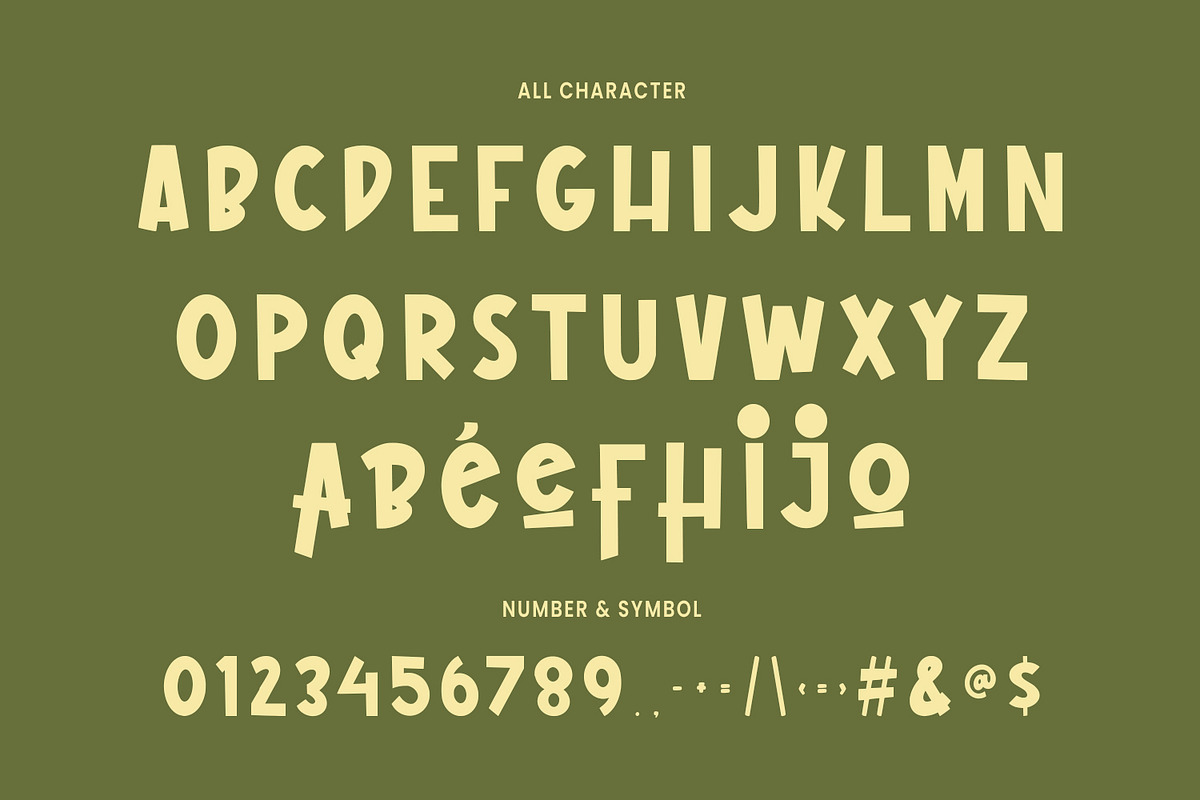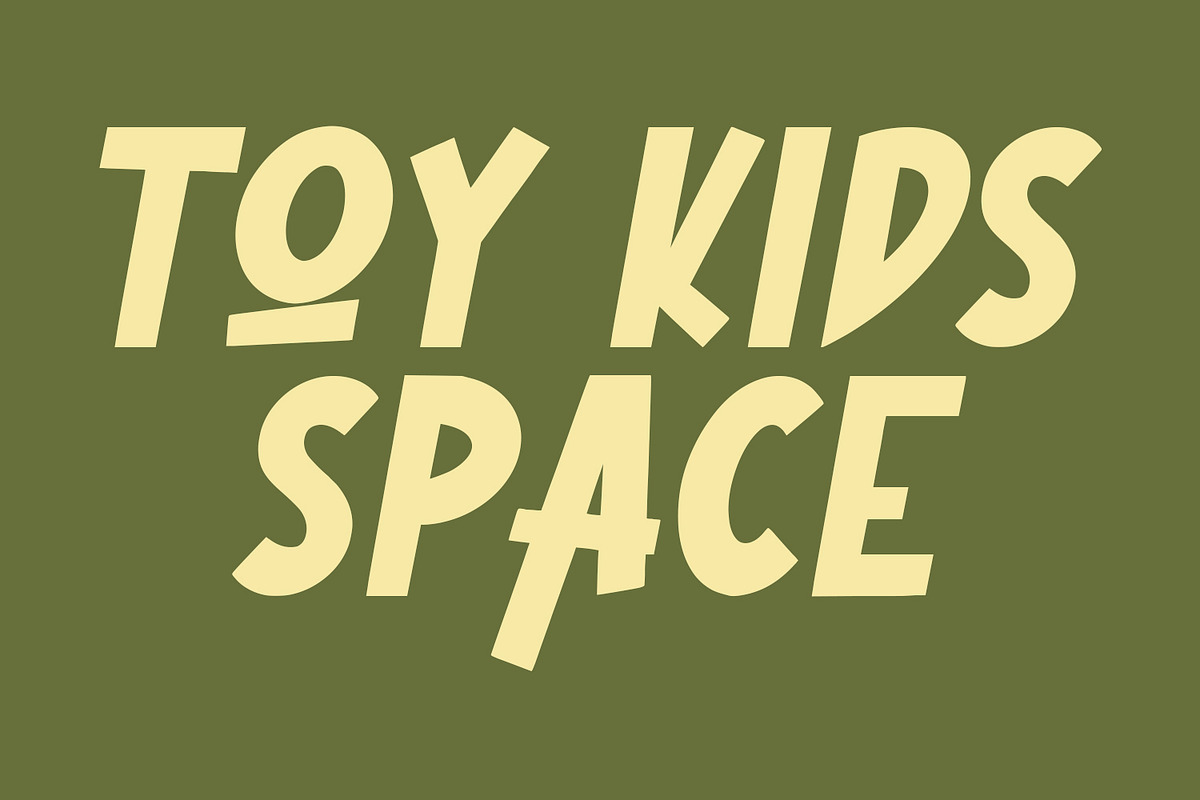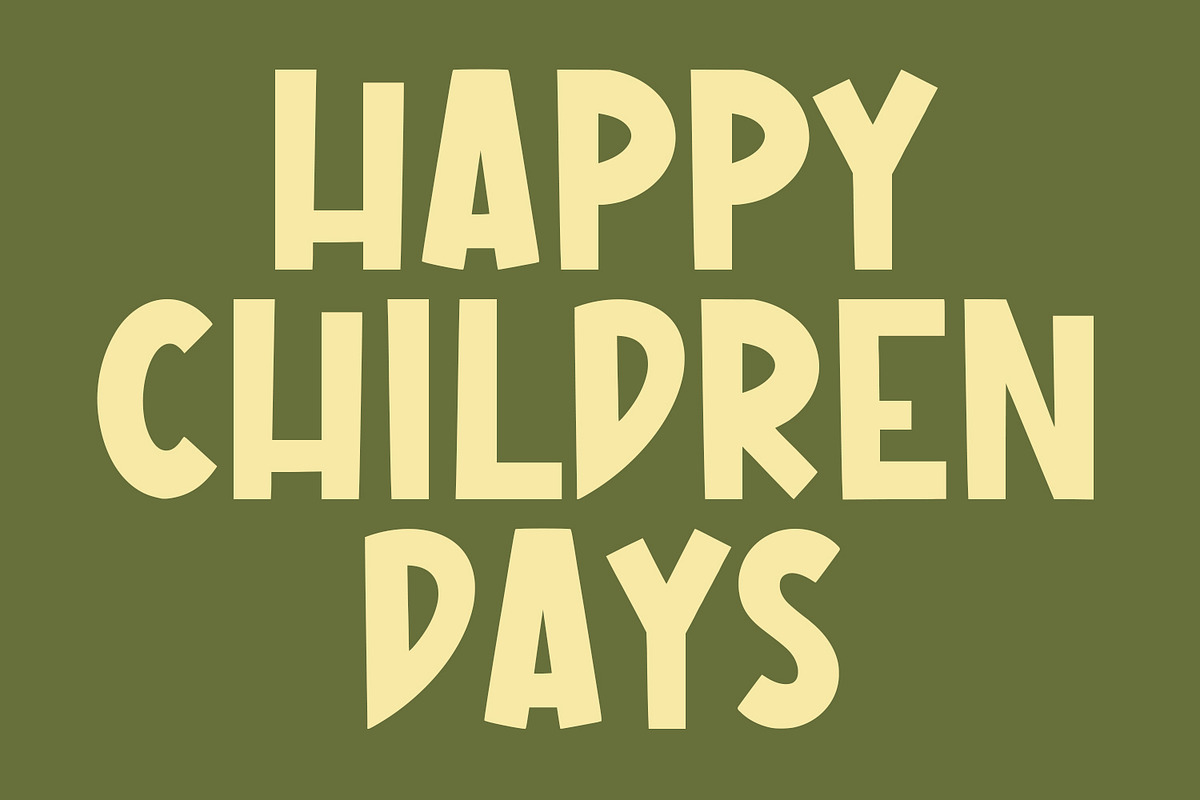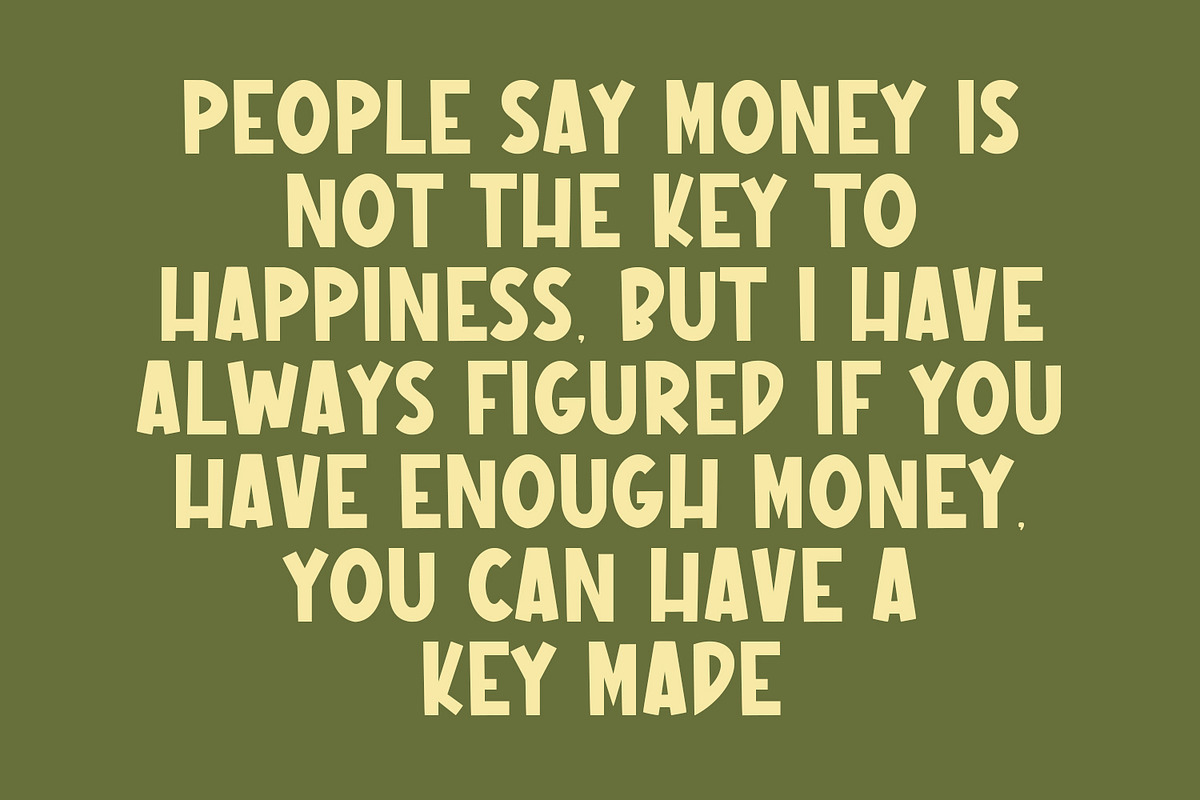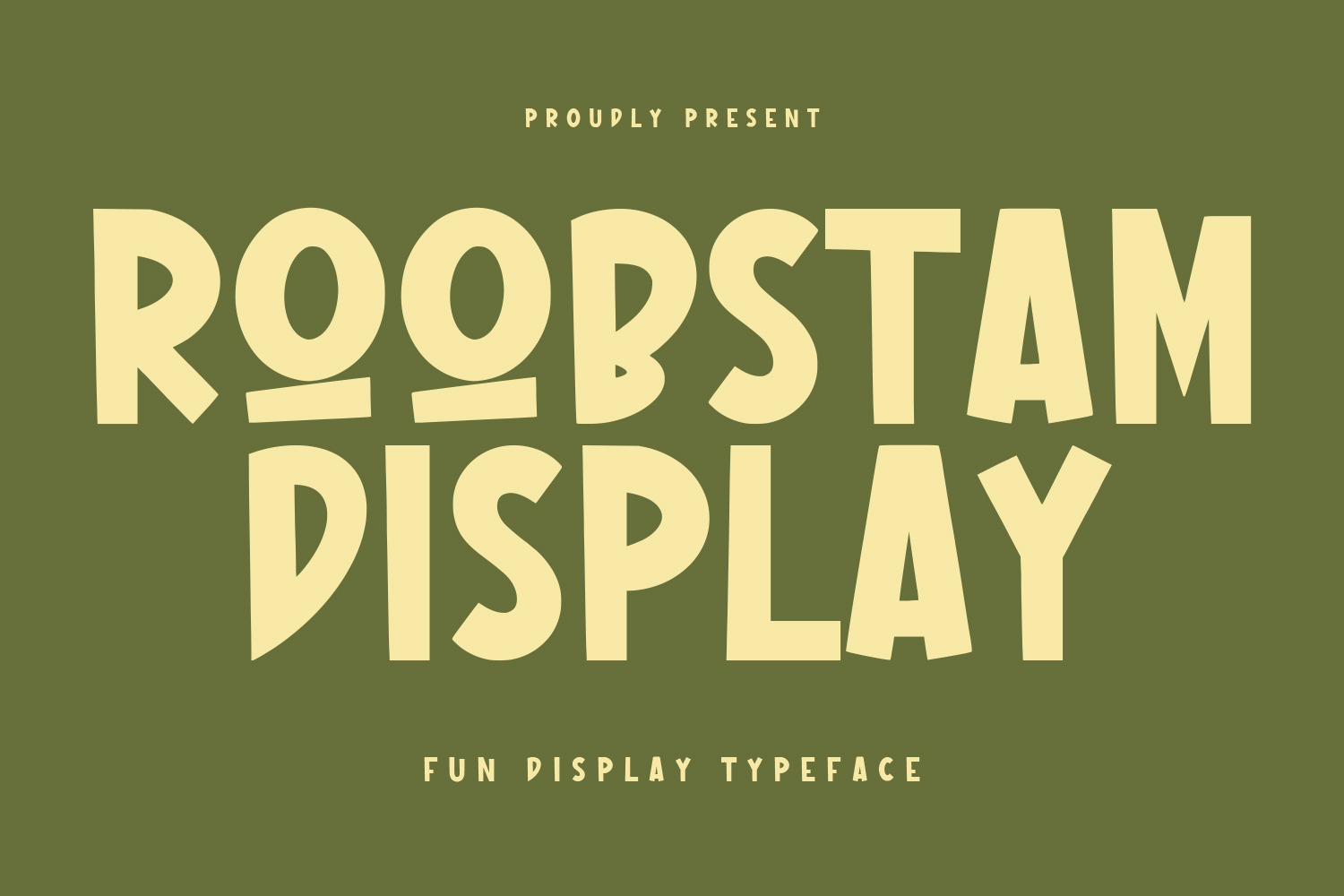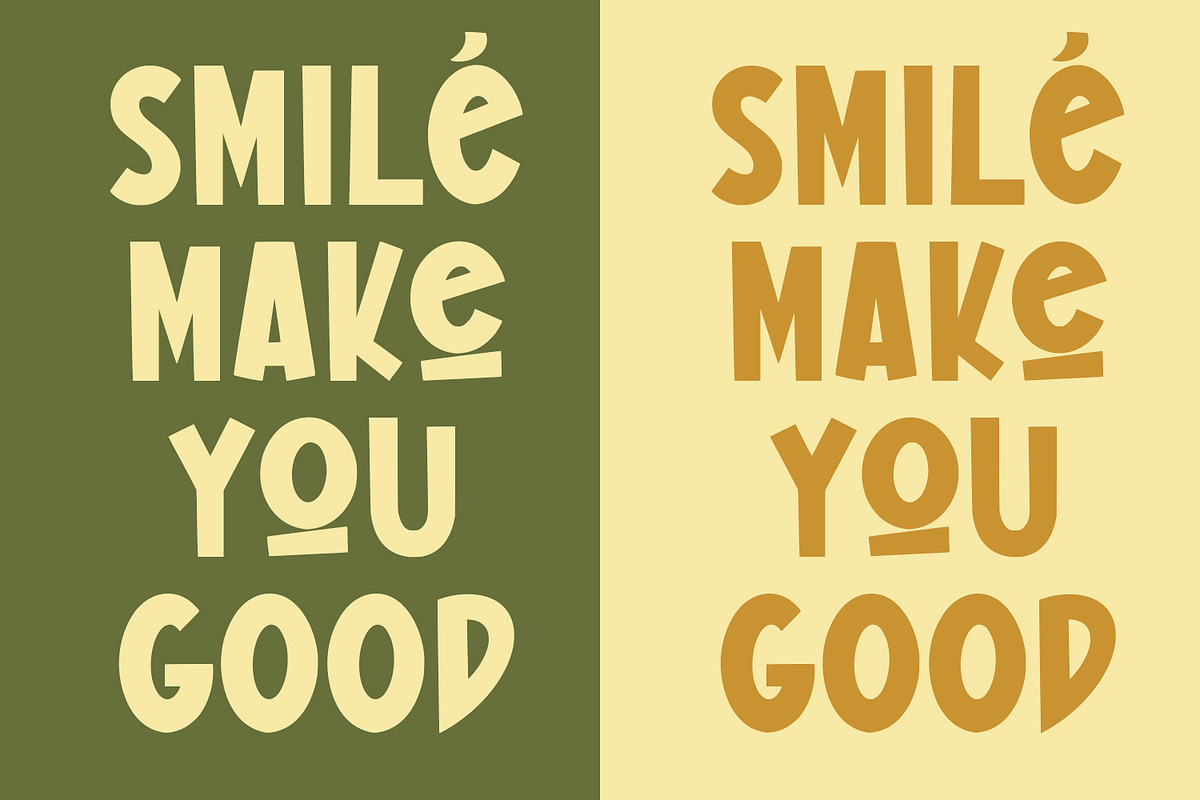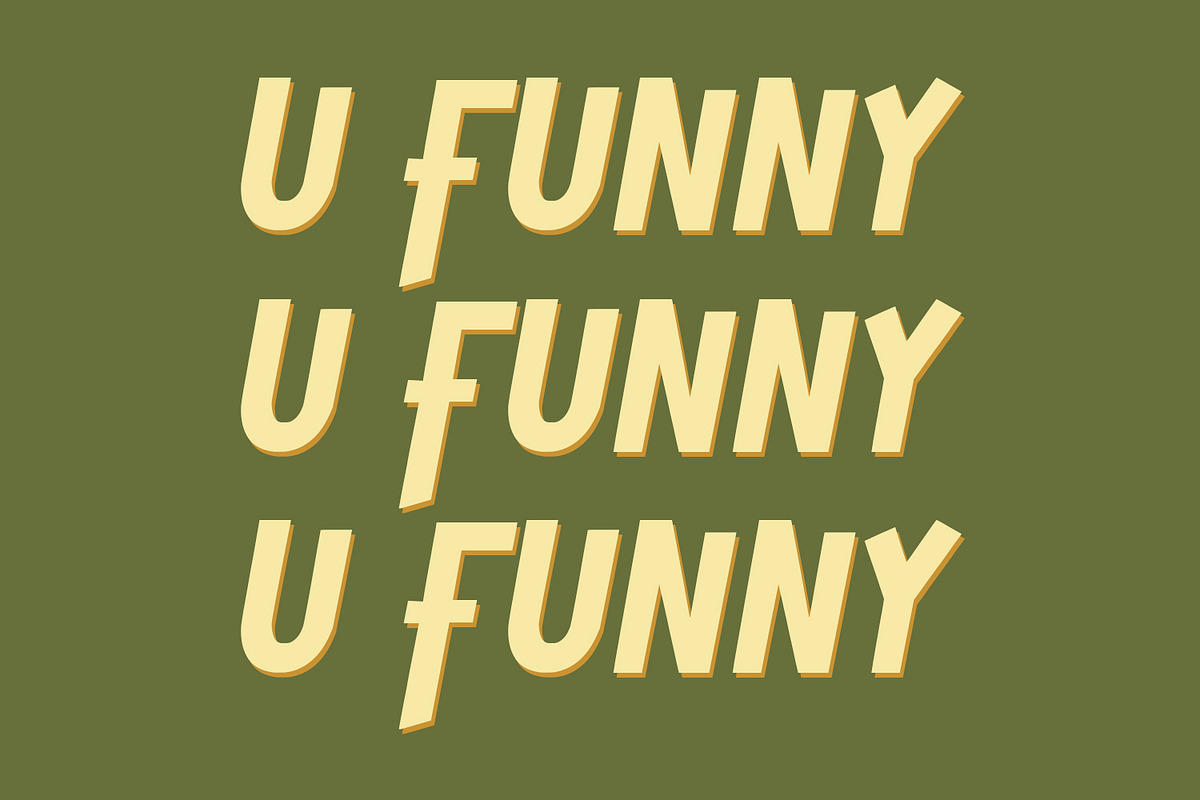
Roobstam Fun Display Font
Roobstam fun display font. Heavy stroke, fun character with a bit of ligatures. To give you an extra creative work. Roobstam fun display font support multilingual more than 100+ language. This font is good for logo design, Social media, Movie Titles, Books Titles, a short text even a long text letter and good for your secondary text font with script or serif. Make a stunning work with Roobstam fun display font.